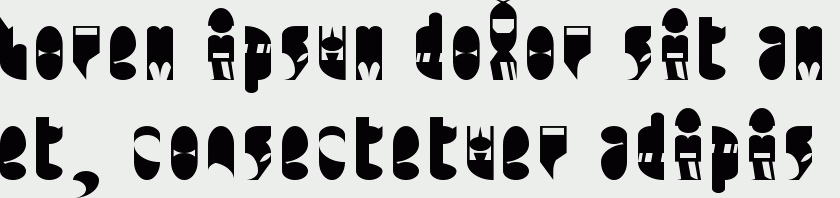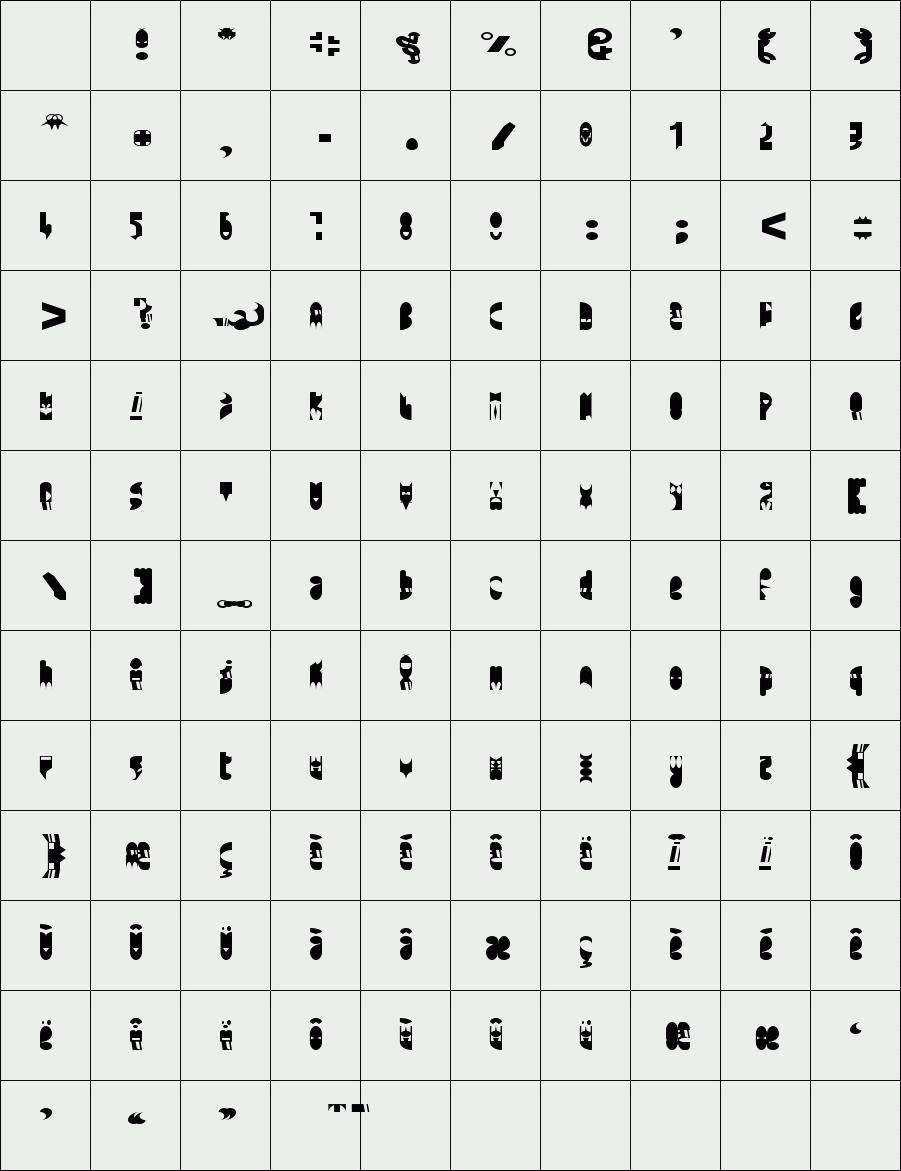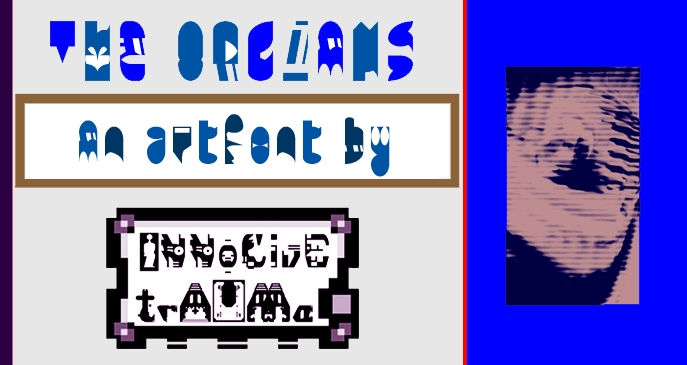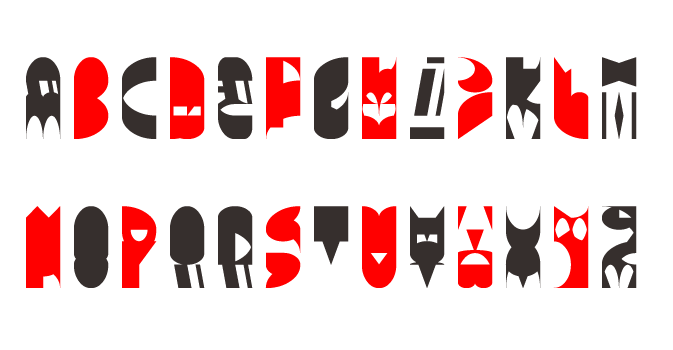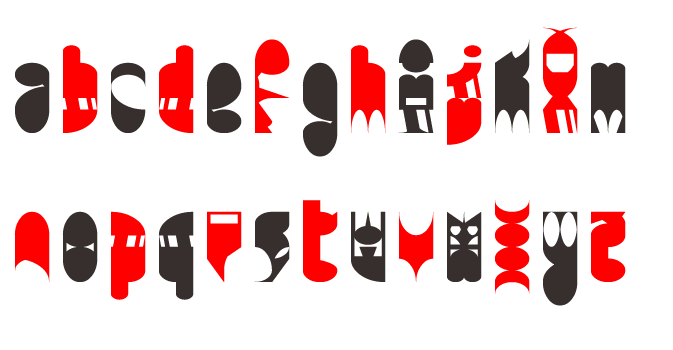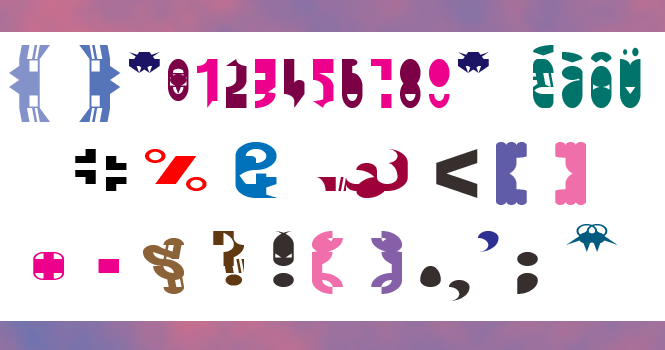
trAUMa 72 / The Orgians
"The Orgians", like all the "trAUMa" series, works at the frontier between Art & Type Design, Figuration & Abstraction, each font is a comprehensive world in which every glyph is a "living" entity. But put together they can produce your messages in the most accurate way.